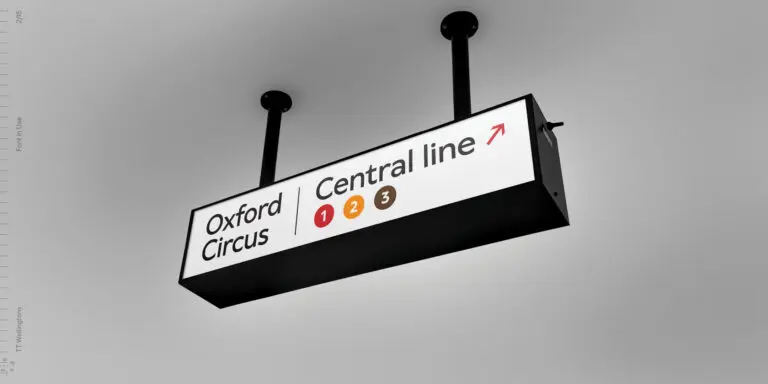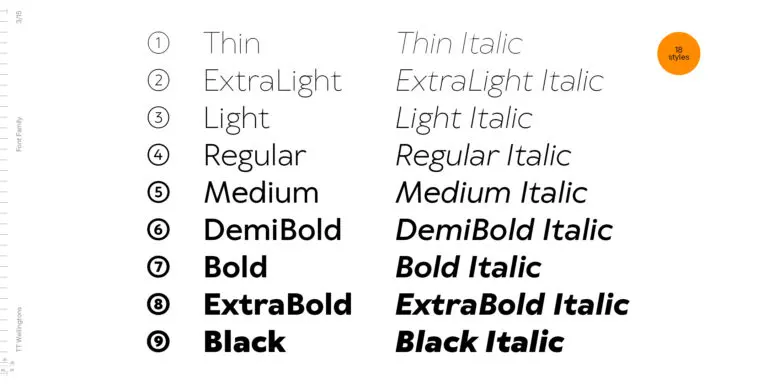
Sporty Fonts
Sporty fonts bring movement, speed, and strength to brand identity, striking the perfect balance between boldness and precision. TypeType’s modern typography solutions enhance recognition—from team branding to equipment and motivational merchandise. Create a dynamic visual identity with typefaces designed to radiate energy in every letter.
TT Polihaus is an experimental sans serif that, at first glance, looks ordinary, but then breaks apart, transforming into a stencil pattern.
TT Nooks Serif is a display modern serif with a slight touch of egocentricity. It has a sharp and firm, yet elegant and stately character.
TT Norms® Pro is a typographic legend embraced by world-renowned brands. Evolved through multiple iterations, it has conquered MyFonts and redefined typographic versatility. A design workhorse that transforms from a humble tool to an essential creative companion.
TT Commons™ Pro is the studio’s typographic powerhouse. A font so versatile it defies categorization, seamlessly bridging style and function. For designers seeking a universal foundation that elevates every project, this is the definitive choice.
TT Hoves Pro is a Scandinavian sans serif that whispers minimalist elegance. Simultaneously understated and distinctive, it’s a designer’s secret weapon that transforms complex challenges into visual poetry with effortless precision.
TT Supermolot Neue is a game-changer in visual communication! An advanced, modular sans serif that captures the pulse of technological innovation, bringing electrifying vision to everything from immersive game interfaces to bold visual narratives.
TT Firs Neue is a balanced sans serif infused with Scandinavian design philosophy. Elegant and versatile, polished through two deliberate revisions to achieve typographic perfection.
TT Rounds Neue is a soft and friendly font that knows how to be different. In lighter font styles it looks minimalist and neutral. The bold font styles make it puff up and achieve maximum roundness, exuding childlike charm.
TT Fors is a design Swiss Army knife of typography. This geometric sans serif delivers pure versatility through clean, refined proportions. It can be used for defining interfaces or crafting visual accents.
TT Ramillas is a stylish and contemporary serif that elevates design to an art form. Characterized by its unique decorative styles and initials with a floral ornament, it crafts visual experiences that are truly one-of-a-kind. Already adorning over 3000 websites globally, it’s a Modern Cyrillic award-winner that redefines typographic sophistication.
TT Drugs is a typeface that doesn`t feature serifs but stands out for its high contrast.
TT Biersal is a display sans serif with a free-spirited, playful, and adventurous nature. The concept of this font was sparked by a German poster from the early 1930s.
TT Paplane is a squared-looking display sans serif.
TT Cometus is an expressive typeface that captivates from the first time.
TT Travels Next is a very trendy and modern wide display sans serif for use in different sets, be they print or web.
TT Octosquares is a fresh, revised, expanded, and significantly improved version of our first commercial font TT Squares & its narrow version.
TT Globs is the first font from the TypeType Starter Kit line.
TT Ricks is a flamboyant elzevir-type serif, for which the words “cute” or “calm” are not a fitting definition.
TT Carvist—peculiar, playful, and courageous—this font does an excellent job of grabbing attention!
TT Espina is a display antiqua with expressive serifs
TT Wellingtons is an attempt to combine the style of English humanist sans serifs of the early 20th century with the requirements for modern geometric grotesques.
TT Smalls is now a decorative font that makes it easy to attract attention.